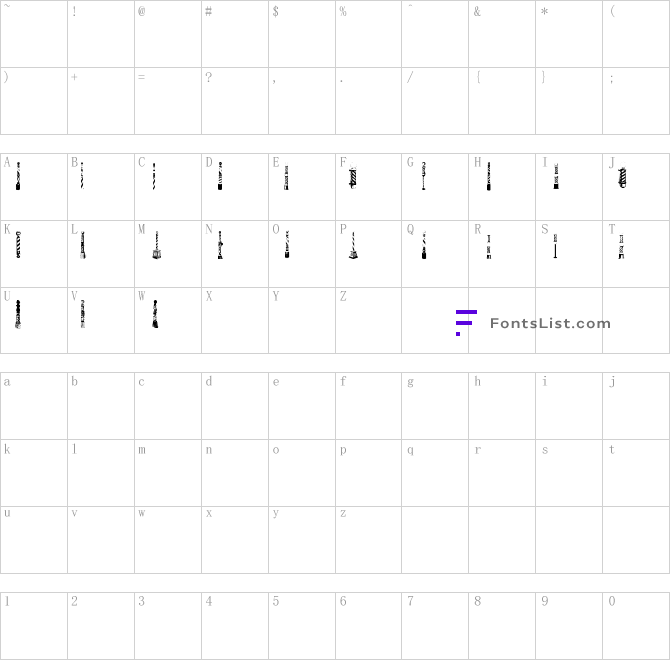
- Font Name:BarberPoles
BarberPoles.ttf is a very beautiful artistic font, BarberPoles.ttf is widely used in the design and printing of various books and pictures,BarberPoles.ttf has a strong visual impact,BarberPoles.ttf is a commonly used font in newspapers, magazines and books, and is used in posters, e-commerce Poster design, store design, logo design, font design and other fields.BarberPoles.